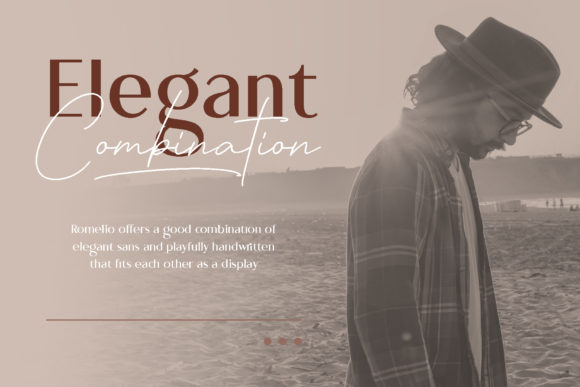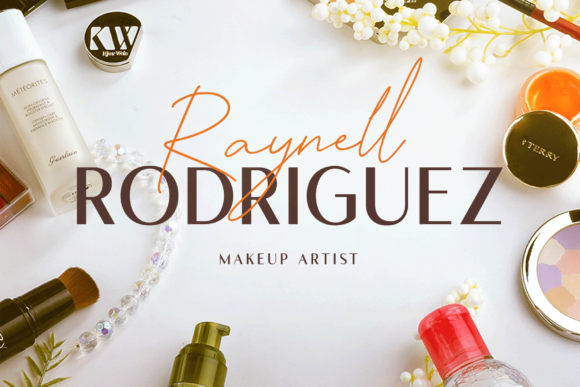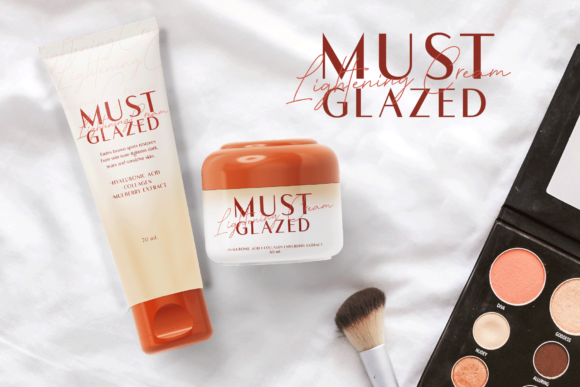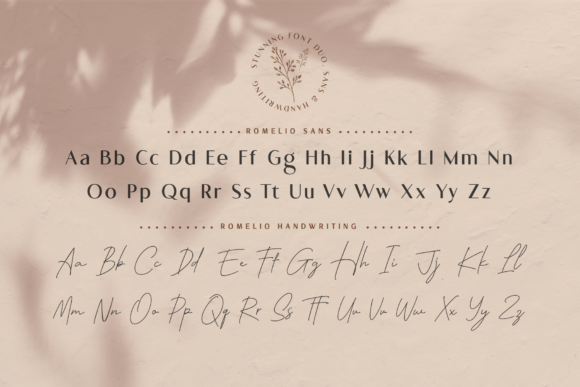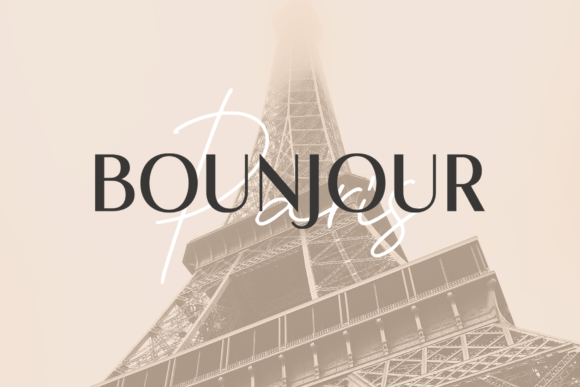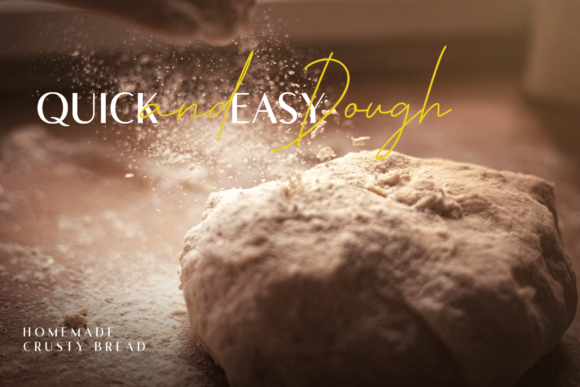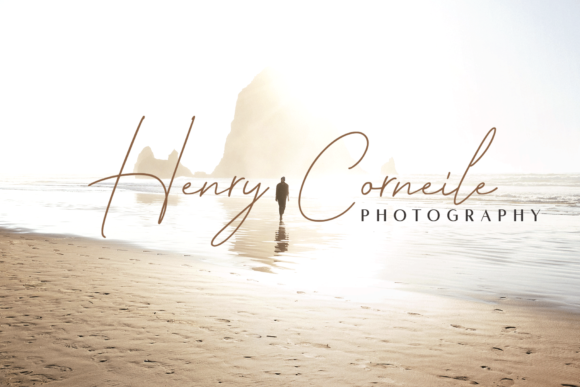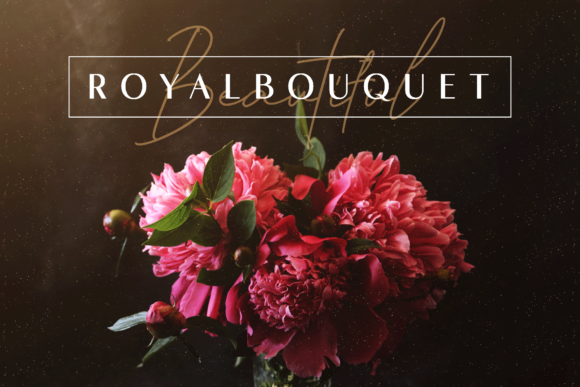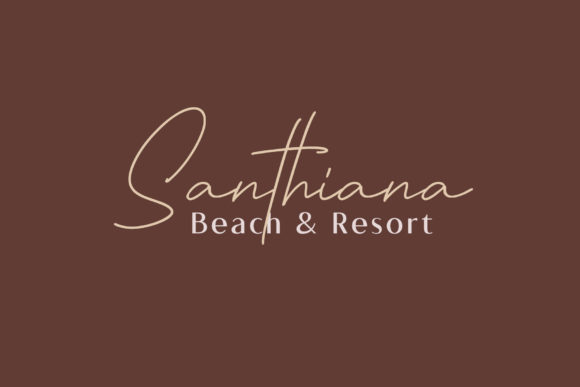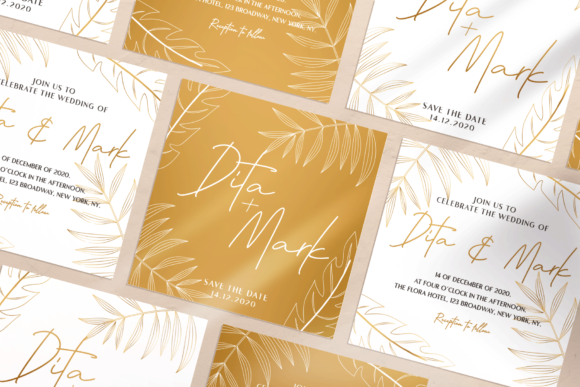
Romelio Font
About Romelio Font
Introducing “Romelio,” a beautiful and classy duo font featuring both a sans serif and a handwritten style. This font duo is incredibly versatile, making it a perfect fit for a wide range of design projects, elevating them to the highest levels of elegance and sophistication. Prepare to be captivated by its charm and watch as it breathes life into your favorite creative ideas, making them truly come alive!
With “Romelio,” you have a font duo that combines both a sleek and modern sans serif font with a charming and authentic handwritten style. This perfect pairing allows you to add a touch of class and uniqueness to your designs. Whether you’re working on branding materials, wedding invitations, logos, or social media graphics, “Romelio” brings an air of elegance that leaves a lasting impression.
The versatility of “Romelio” makes it an ideal choice for a wide pool of designs. Its duo nature allows you to mix and match the fonts, creating eye-catching combinations that suit your creative vision. From contemporary and minimalist to timeless and sophisticated, “Romelio” effortlessly adapts to your design preferences, making it a reliable choice for all your projects.
Unleash your creativity and notice how “Romelio” enhances your designs with its beautiful and classy touch. Whether you’re crafting refined quotes, designing luxurious branding, or creating captivating art prints, this font duo will elevate your ideas to new heights of elegance and allure.
So, immerse yourself in the beauty of “Romelio” and let it become your creative inspiration. Allow its versatile and classy styles to breathe life into your designs, turning them into spectacular works of art. Whether you’re a seasoned designer or a passionate enthusiast, “Romelio” empowers you to create visuals that stand out and make a statement. Let “Romelio” be the key to unlocking the beauty and sophistication in your designs, and watch as it takes your projects to new levels of refinement and excellence!